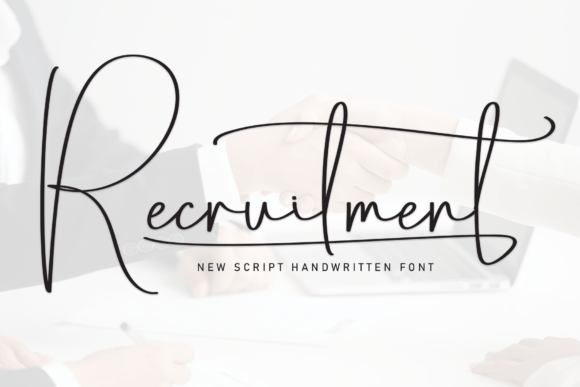
Behold Recruitment, a stroke of genius that transforms digital canvases into breathtaking masterpieces. This font's script persona is a true chameleon, seamlessly adapting to your design vision, whether you seek a touch of whimsy or a dash of elegance. Its versatile nature lends itself effortlessly to logos that exude charm or wedding invitations that radiate romance.
Embrace the magic of Recruitment and watch as your designs blossom into works of art. Its delicate strokes, reminiscent of a skilled calligrapher's hand, evoke a sense of nostalgia and warmth. Experience the joy of creating logos that capture the essence of your brand and leave a lasting impression.
Immerse yourself in the world of Recruitment and uncover its boundless possibilities. With a single download, you unlock a font that effortlessly allures, inviting your audience into a realm of beauty and grace. Its elegant curves and intricate details add a touch of sophistication to any project, leaving your audience captivated by your design prowess.
Step into the realm of creativity and let Recruitment be your trusted companion. Whether you're crafting social media posts that ooze personality or designing product labels that demand attention, this font is your secret weapon to stand out from the crowd. Its enchanting aura breathes life into your designs, captivating your audience with its timeless charm.